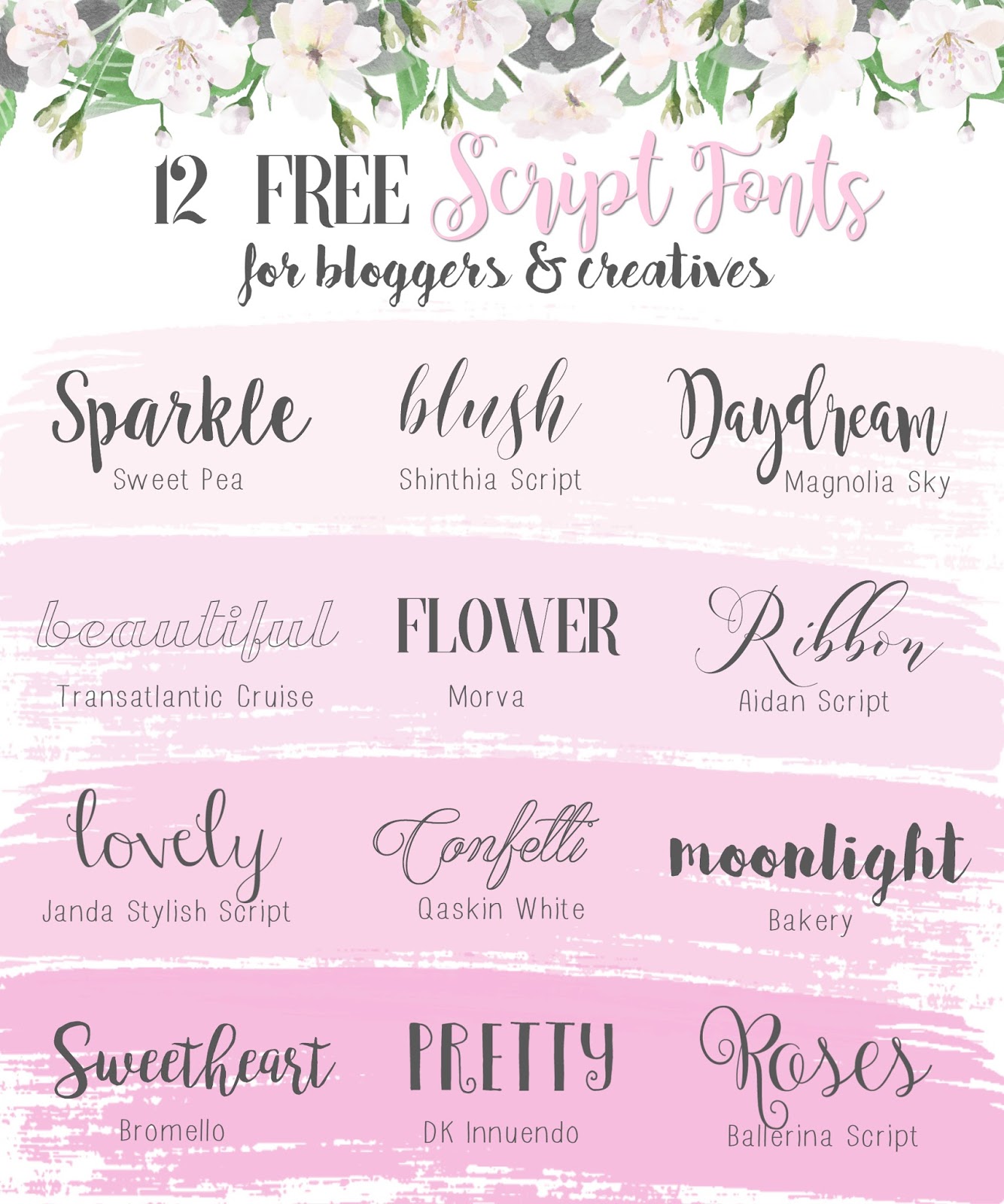
Cursive Font For Instagram Post. This is a simple generator that you can use to make fonts for instagram. Another simple yet effective app for upgrading your instagram bio is texty:
Use our custom stylish text generators to make your instagram account unique and one of a kind. Instagram text generator our instagram font generators allow you to create cool text that you can copy and paste into your instagram bio, captions, comments, and stories. Cursive handwriting generator copy and paste.
Generate 𝒞𝓊𝓇𝓈𝒾𝓋ℯ Handwriting To Use In Facebook Posts, Tweets, Instagram Bios, Instant Messages, And Lots Of Other Places Online.
Simply put your normal text in the first box and fonts for instagram bio/captions/etc. Use this fancy font template to insert text into a photo or video for instagram! Script / cursive / handwriting.
Since Social Media Sites Don't Generally Allow Fonts, It Gives The User A Huge Surprise When They See Something New Like That.
So whether you want to paste cursive text in your tumblr blogs, facebook statuses, twitter profiles or tweets, instagram descriptions or wherever, this translator should hopefully be handy for that. 30+ best instagram fonts for social media branding overview. Will appear in the output box with all sorts of cool symbols.
You can also combine some styles together, such as bold + italic, bold + cursive, and even bold, italic +. Use our custom stylish text generators to make your instagram account unique and one of a kind. Most of the ig users want to add bold and cursive fonts to their posts and stories.
You Can Choose Serif, Cursive, Bold And Italic.
The fonts you get here are very unique in design and are attention grabber.you can copy and paste these fonts into your clipboard and paste it in your android text editor, facebook, instagram,twitter post etc. The fonts that create a unique look with a combination of some aesthetic fancy text and symbols are called instagram fonts. Hundreds of amazing fonts for instagram that are totally free and easy to copy, paste, and use.